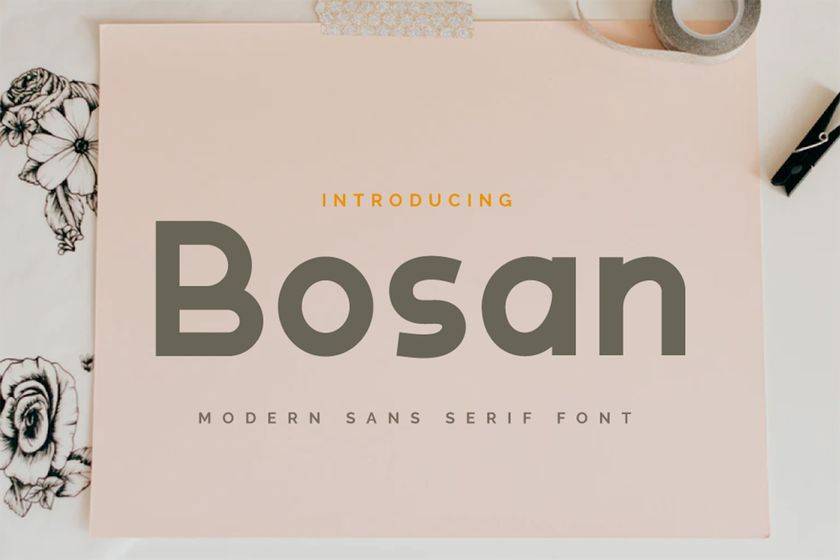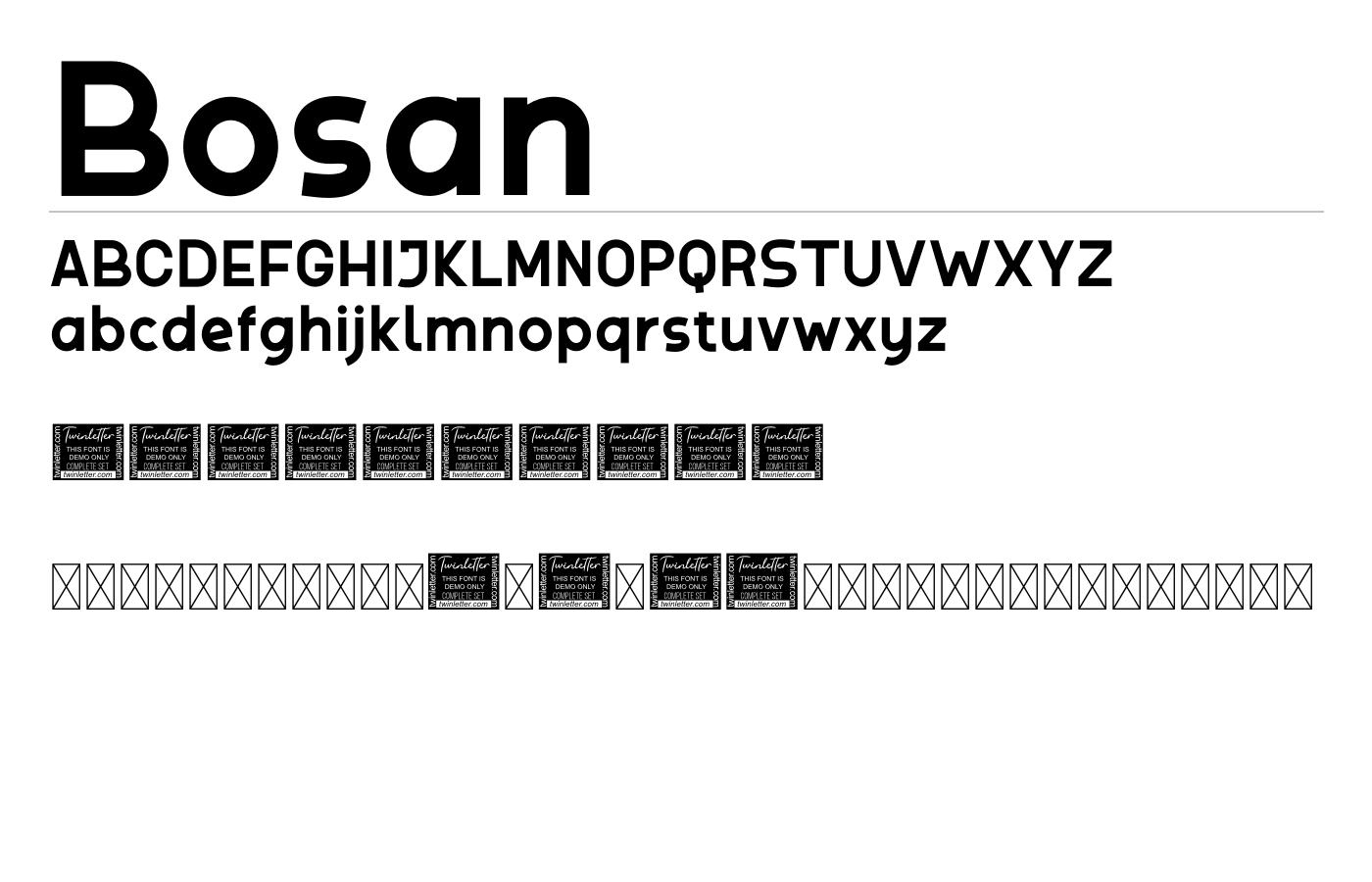
Bosan is a bold, geometric sans-serif font featuring a clean and modern design with strong, uniform strokes and a slightly condensed width. Its high x-height and simple letterforms give it excellent readability and a sturdy, confident presence, making it ideal for branding, headlines, and editorial use where clarity and impact are key. This font works well for modern, professional brands seeking a straightforward yet distinctive look.
Bosan Font
About Bosan Font